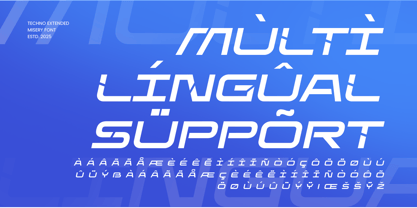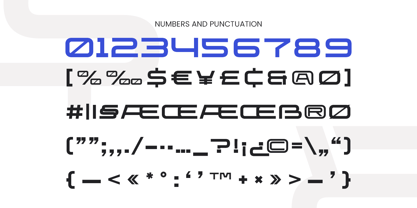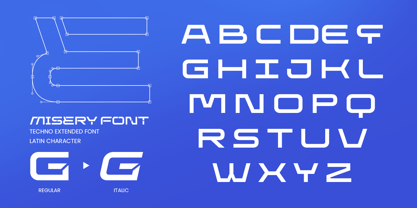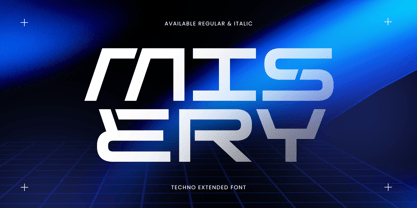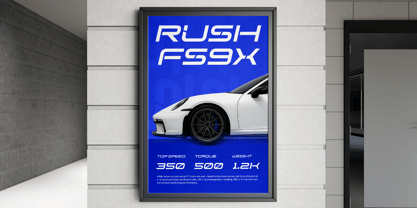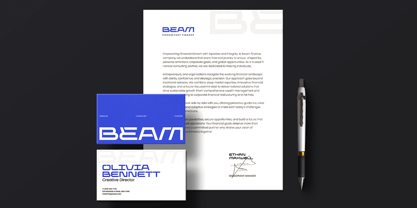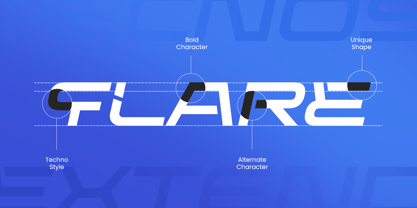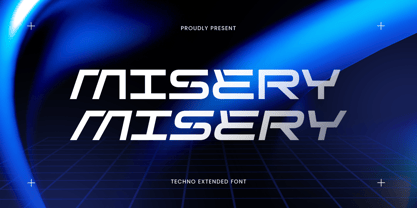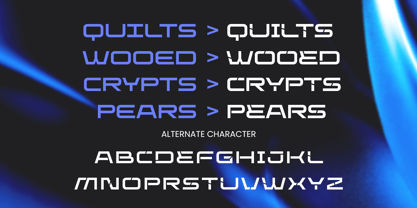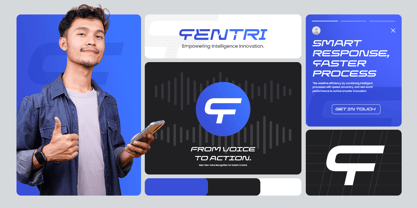
MISERY is a techno extended font with a futuristic soul and a bold attitude. Designed for creators who want to push visual boundaries, MISERY combines digital precision with brutalist energy — making it the perfect typeface for cyberpunk visuals, tech interfaces, sci-fi branding, and digital posters.
Inspired by glitch art, dystopian futures, and extended industrial design, each character in MISERY is crafted to stand tall and stand out. Its stretched proportions and sharp terminals give a sense of urgency and innovation, perfect for high-impact digital or print layouts.
From electronic album covers to modern UI dashboards, MISERY injects power, character, and clarity into your next tech-forward project.
MISERY – Techno Extended Font Features
Futuristic extended letterforms
Bold and sharp techno aesthetic
Designed for tech, cyberpunk, and digital themes
Includes punctuation, numbers, and symbols
Unique Characters Available
OpenType features for stylistic flexibility
Multilingual support for Afrikaans, Albanian, Asu, Basque, Bemba, Bena, Breton, Chiga, Cornish, Dutch, English, Estonian, Filipino, Finnish, Friulian, Galician, German, Gusii, Indonesian, Irish, Italian, Kabuverdianu, Kalenjin, Kinyarwanda, Luo, Luxembourgish, Luyia, Machame, Makhuwa-Meetto, Makonde, Malagasy, Manx, Morisyen, North Ndebele, Nyankole, Oromo, Portuguese, Quechua, Romansh, Rombo, Rundi, Rwa, Samburu, Sango, Sangu, Scottish Gaelic, Sena, Shambala, Shona, Soga, Somali, Spanish, Swahili, Swedish, Swiss, and more.
Build your next digital world with MISERY – where typography meets tech-driven intensity. 🦾👁️🗨️